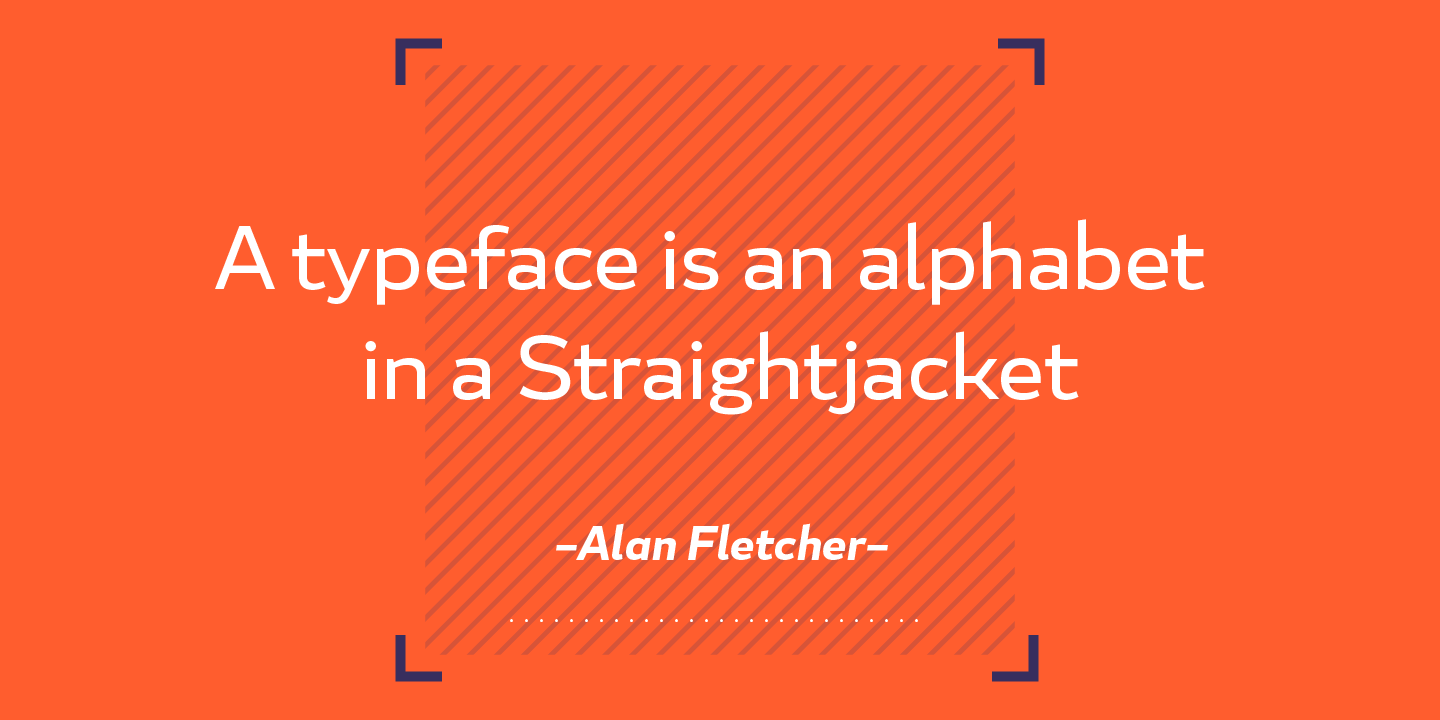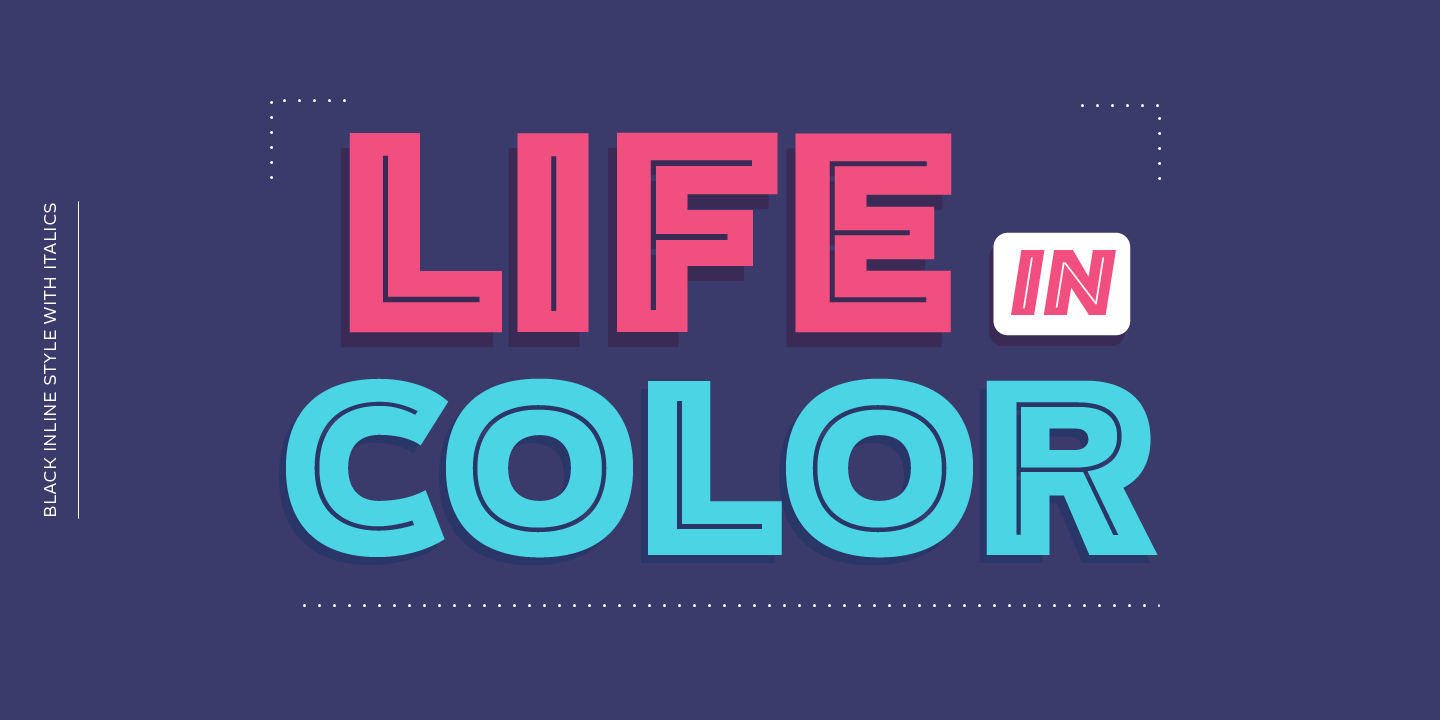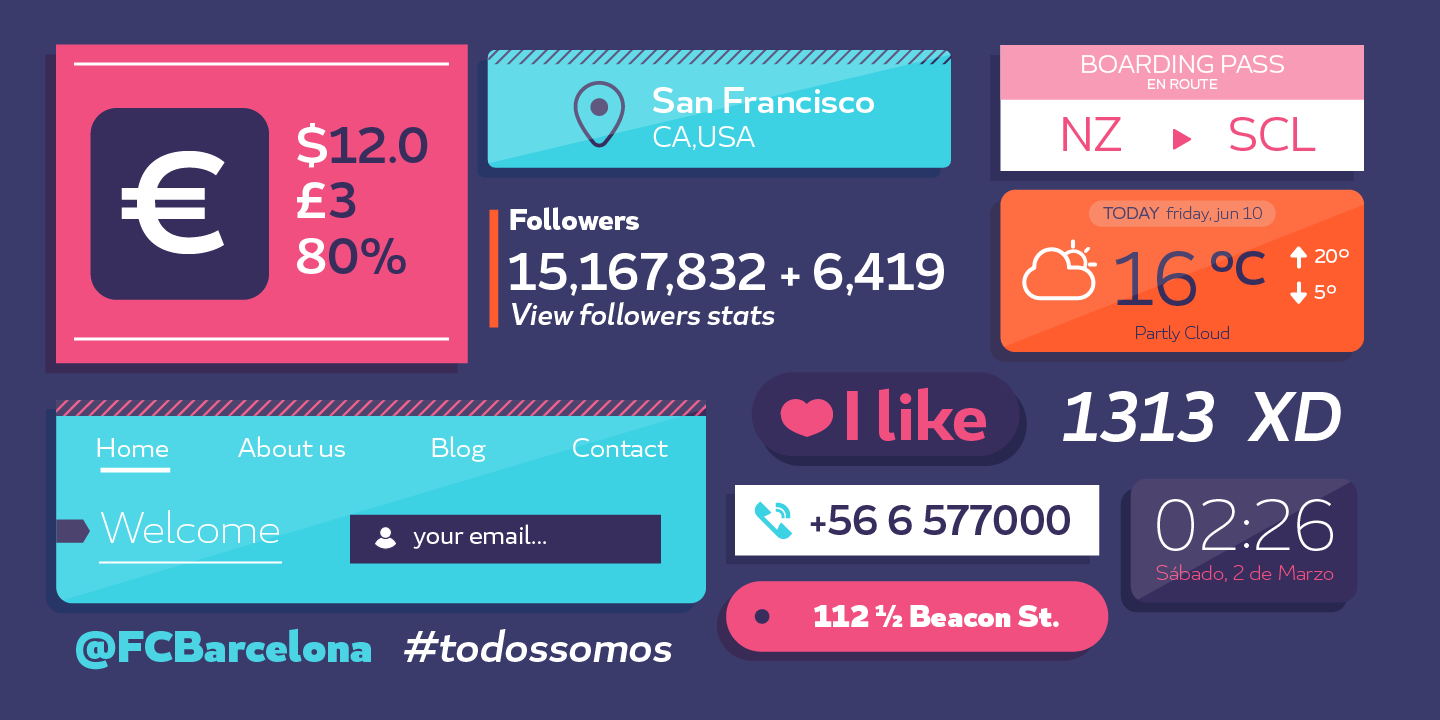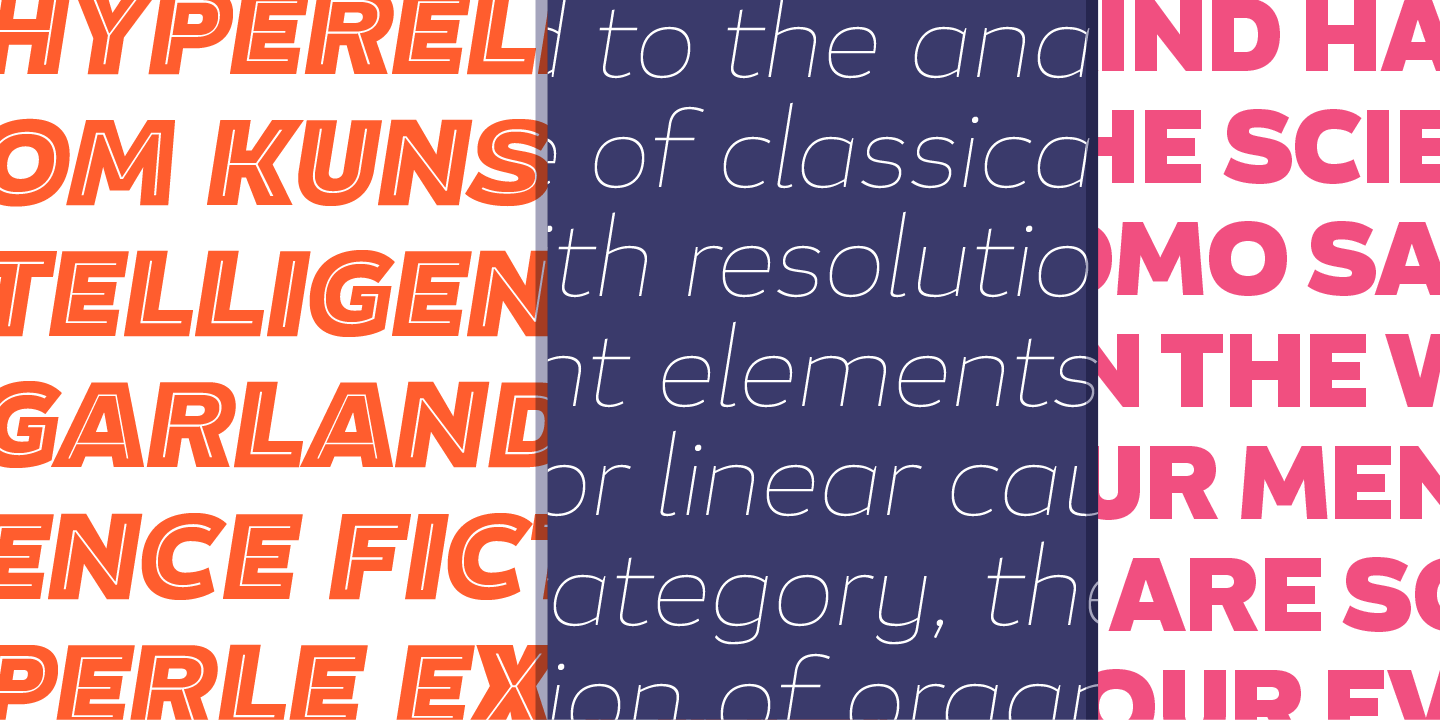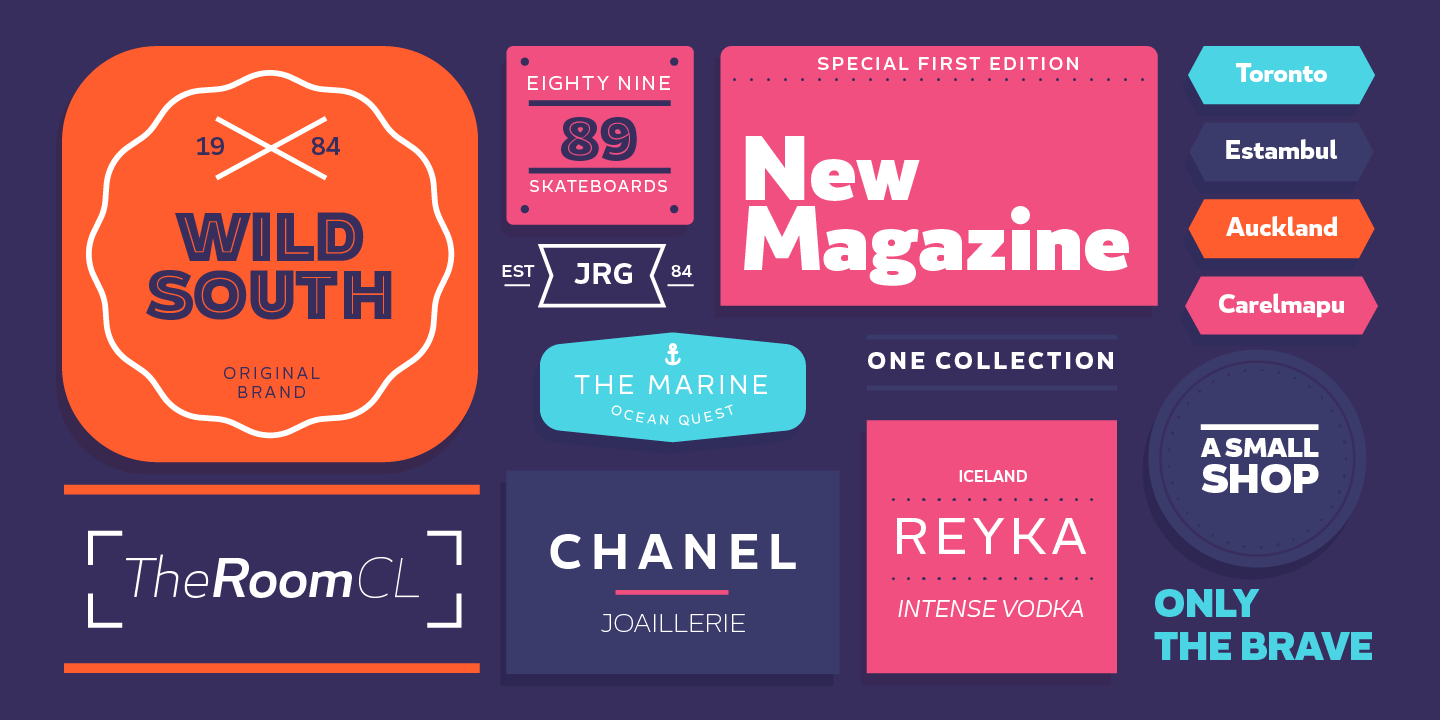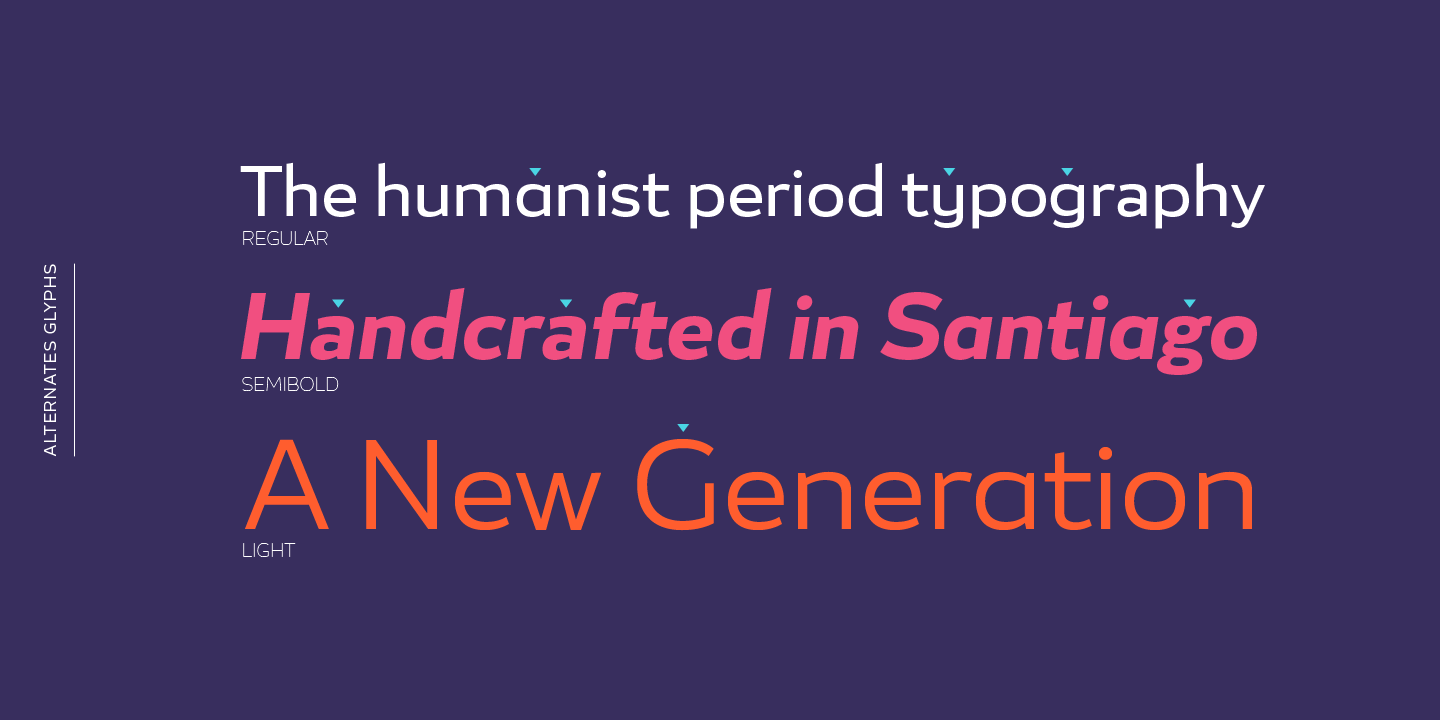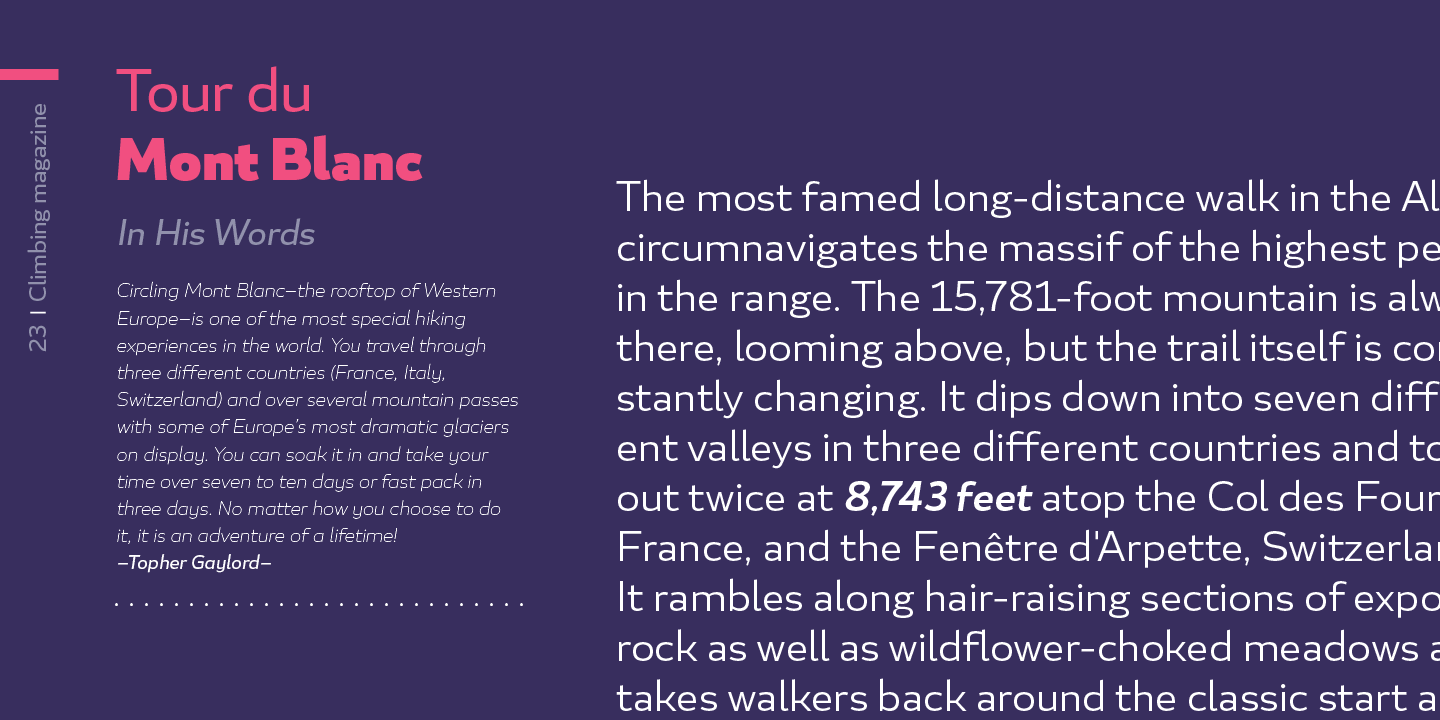
Blanc Complete Family (18 fonts)
The Blanc family includes 18 fonts which includes an inline version and Italic that make it well-suited for headings and subheadings, corporate designs, advertising, publishing, etc.
Weights and Styles included in the Blanc Family:
Thin
Thin Italic
Ultra Light
Ultra Light Italic
Light
Light Italic
Regular
Italic
Medium
Medium Italic
SemiBold
SemiBold Italic
Bold
Bold Italic
Black
Black Italic
Inline
OpenType features: Ligatures, Alternates